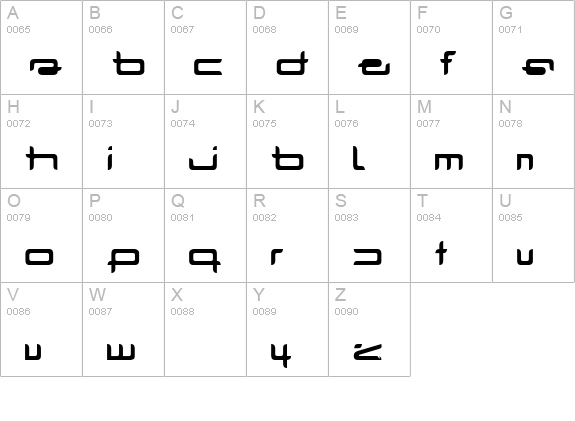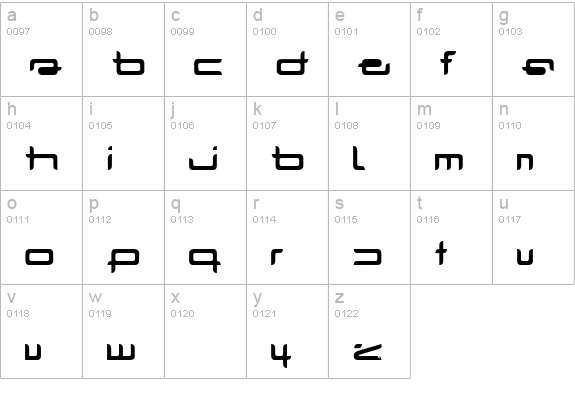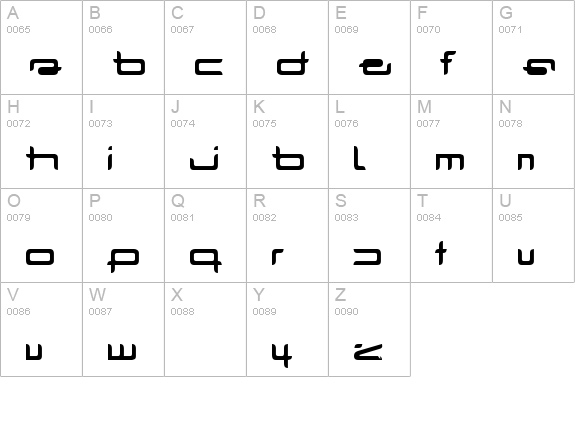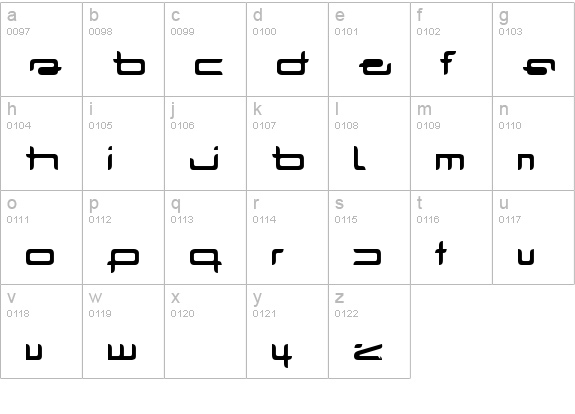
radar Font Details
Introducing Radar Font, a stunning typeface designed with precision and creativity. This versatile font exudes a sense of modernity and elegance, making it the perfect choice for a wide range of design projects. Whether you're creating eye-catching logos, engaging social media graphics, or captivating printed materials, Radar Font is sure to make a bold statement. With its sleek and streamlined letterforms, Radar Font effortlessly captures attention and adds a touch of sophistication to any design. Its clean lines and smooth curves create a harmonious balance, allowing for seamless readability across various mediums. From headlines to body text, this font delivers exceptional legibility, ensuring that your message is conveyed with clarity and impact. One of the most remarkable features of Radar Font is its versatility. It effortlessly adapts to different design styles and aesthetics, making it suitable for a wide range of applications. Whether you're going for a minimalist and modern look or a more playful and whimsical design, Radar Font can easily accommodate your vision and enhance the overall aesthetic of your project. And the best part? Radar Font is available for free! You can download this incredible font at FontsMarket.com, a trusted source for high-quality fonts. By offering Radar Font as a free download, we aim to provide designers, creatives, and enthusiasts with access to top-notch typography without breaking the bank. Now, you can elevate your designs without compromising on quality or budget. Make a lasting impression with Radar Font. Download it for free at FontsMarket.com and unlock a world of possibilities for your next design endeavor. Let your creativity soar and captivate your audience with this remarkable typeface. Get ready to make a statement that echoes through the design world with Radar Font.